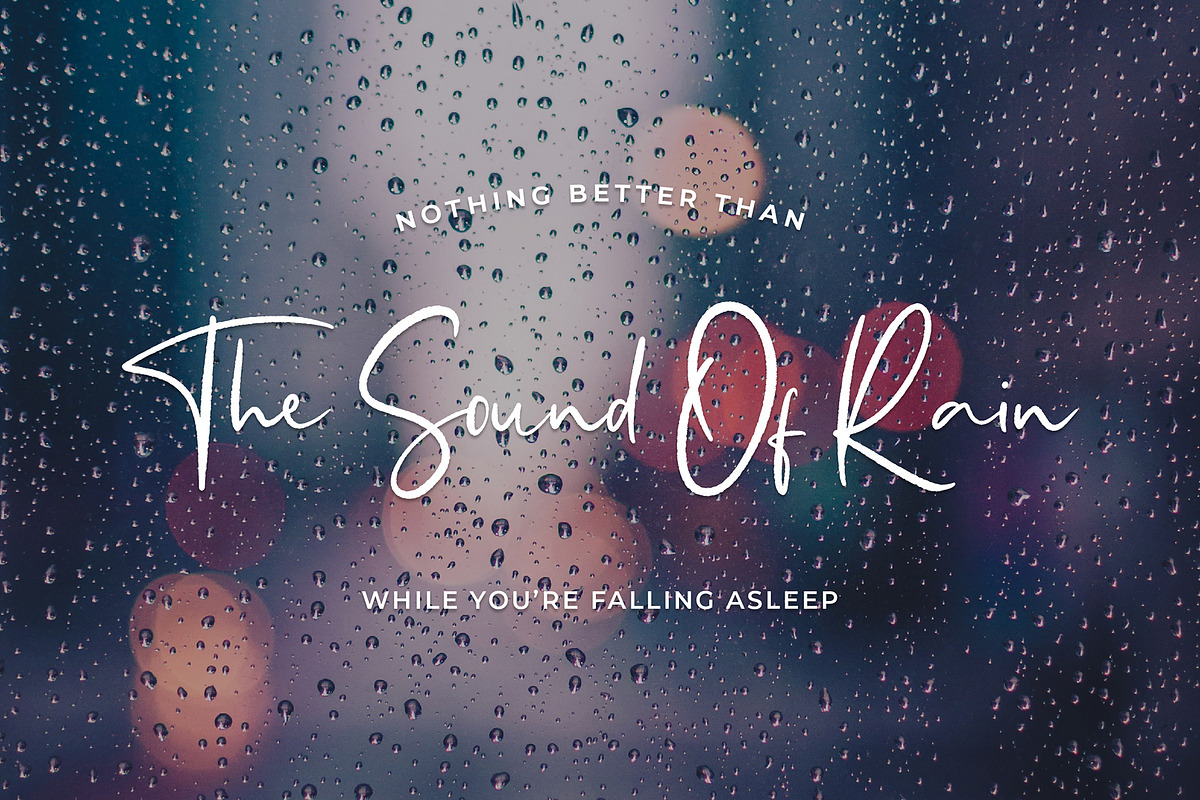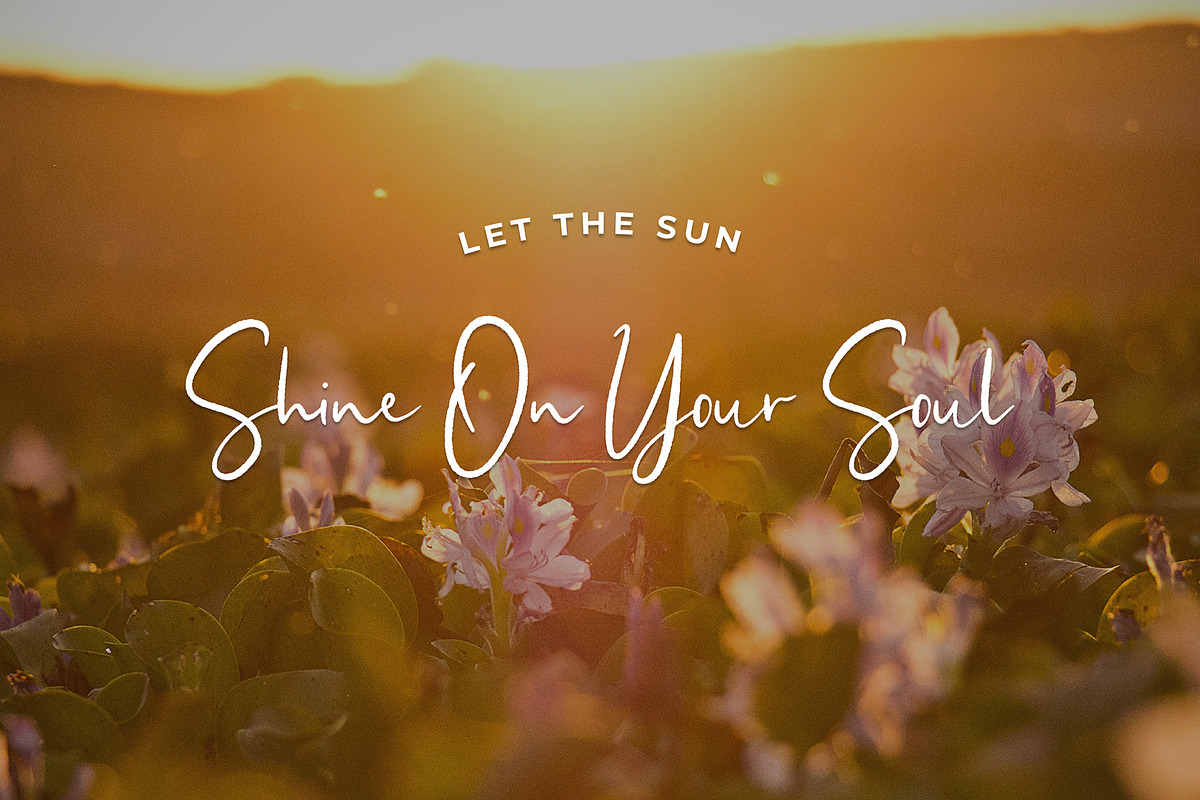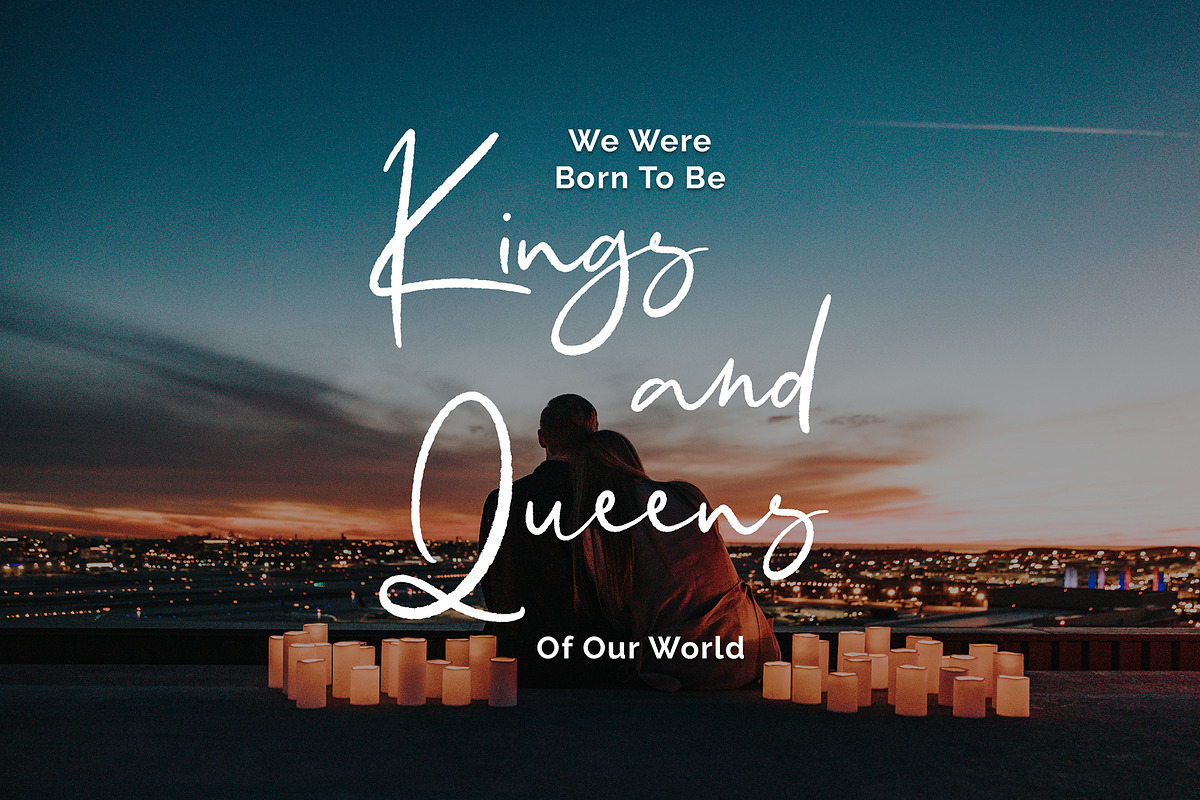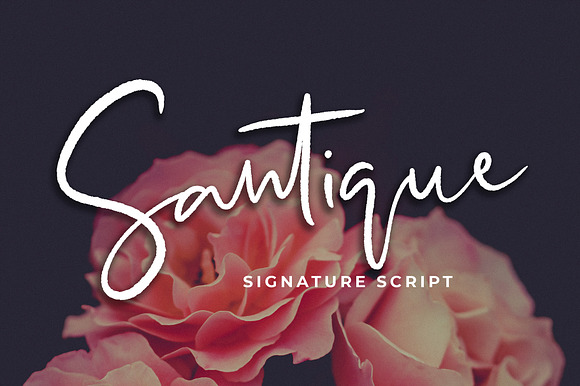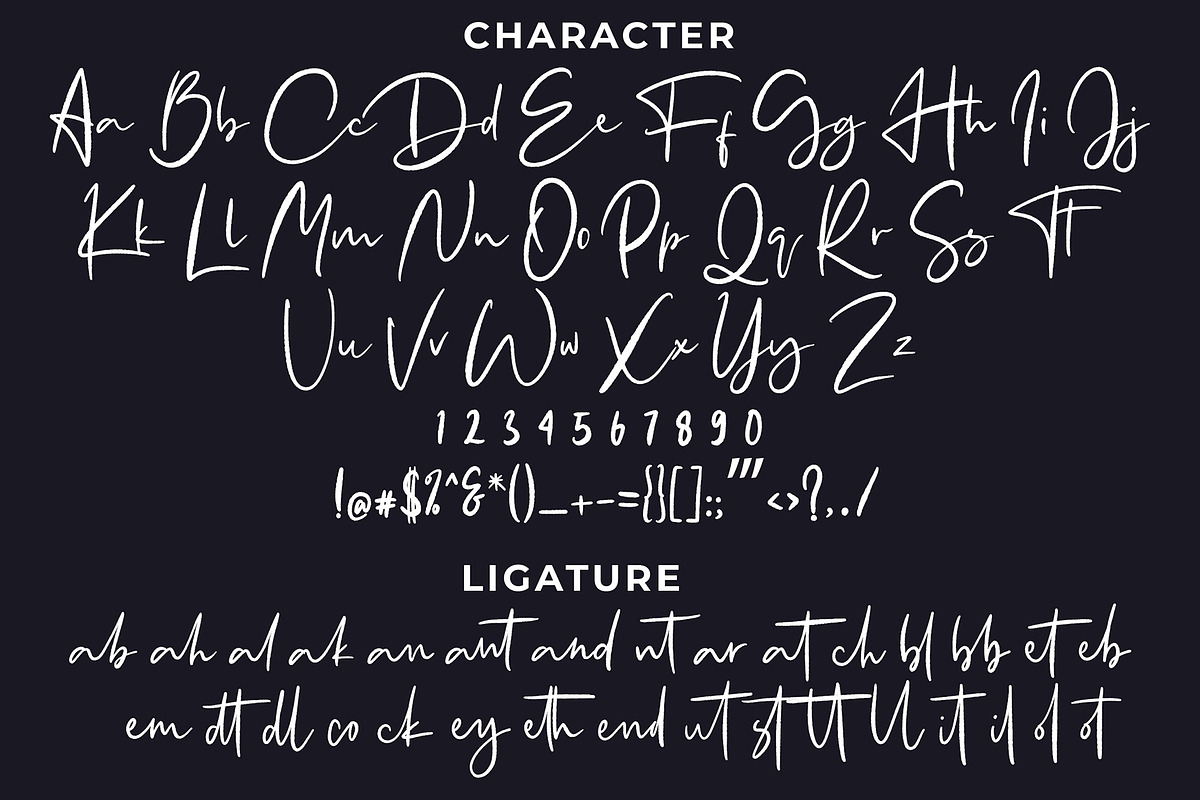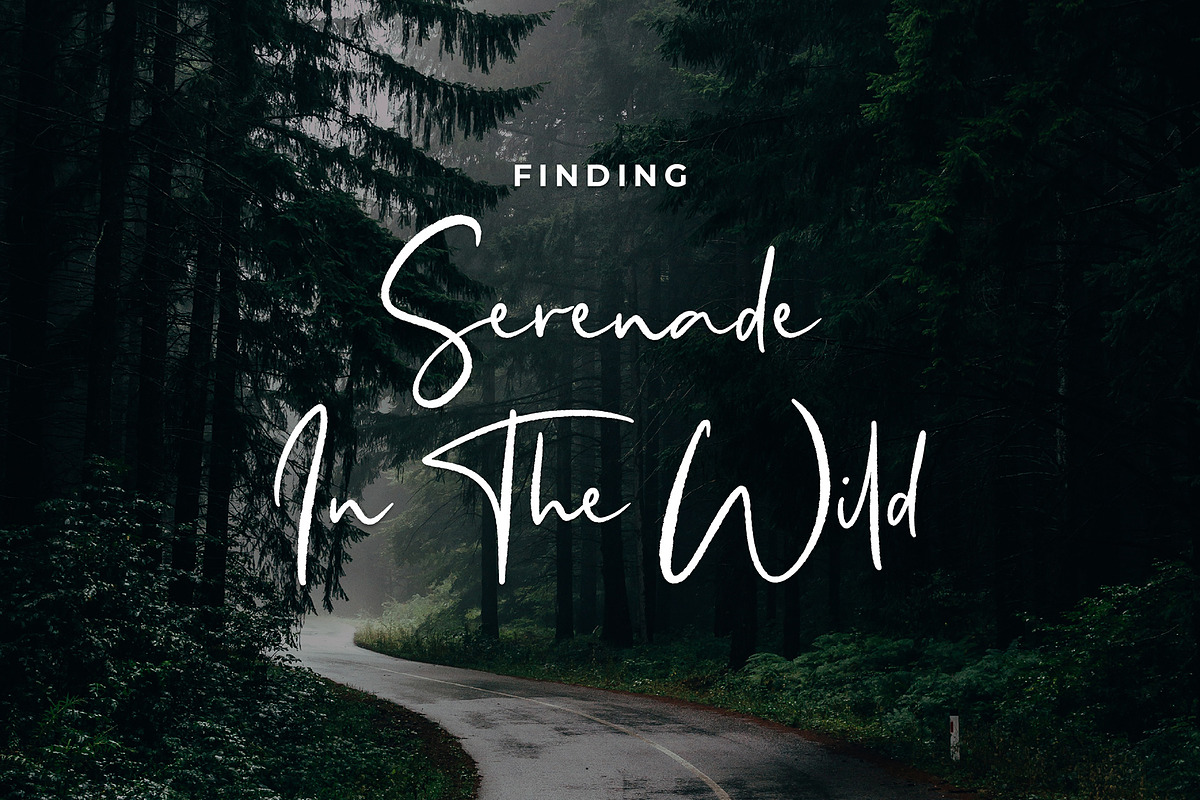
Santique Signature Script Font
Santique Signature Script Font is a signature script can be used for various purposes such as logos, wedding invitations, t-shirts, letterheads, signage’s, labels, and much more!
Santique Signature Script Font by Formatika Studio fits naturally into Branding, posters, packaging, typography.